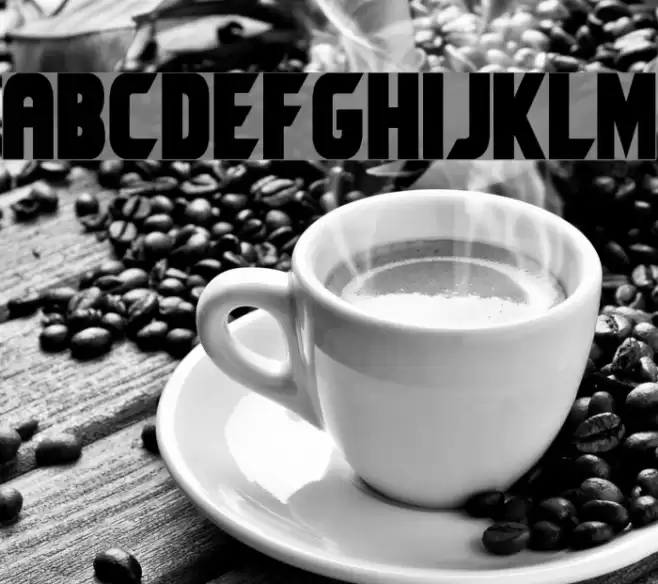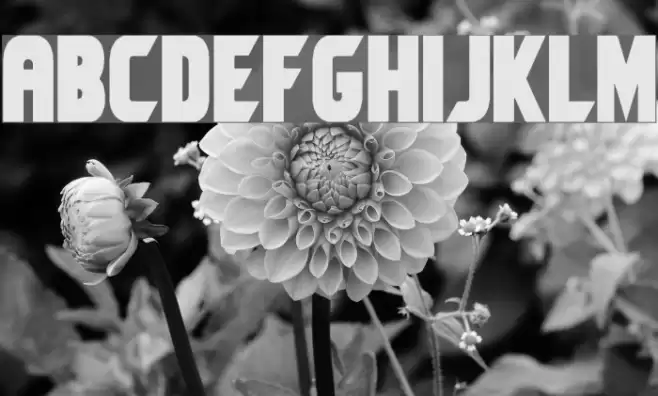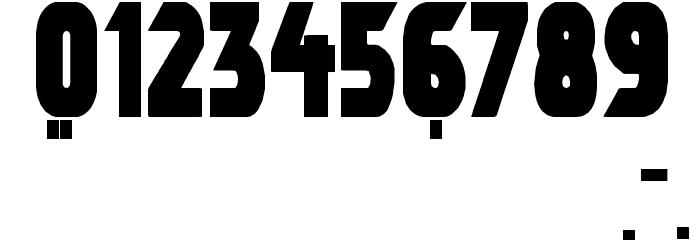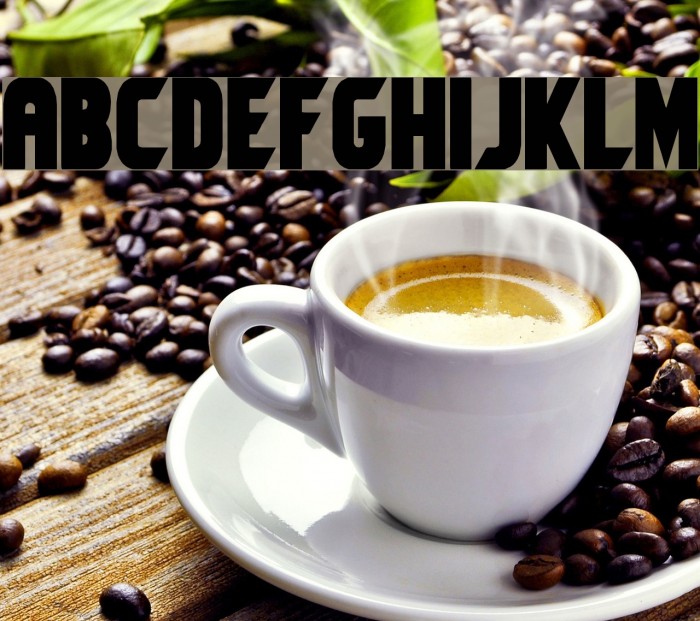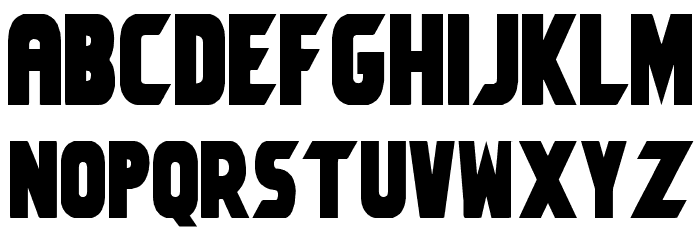
Umbro Solid Font
Umbro Solid Description
This font features bold, geometric letterforms with a strong, impactful presence. The characters are constructed with thick strokes and sharp angles, giving them a modern and assertive look. The uppercase letters are particularly striking, with a uniform height and width that creates a cohesive and balanced appearance. The numerals are equally bold, maintaining the same weight and style as the letters. The overall design is clean and straightforward, making it suitable for projects that require a strong visual impact.
A bold, geometric font with strong, impactful letterforms from Uncategorized fonts.
- Proposed Projects: Ideal for branding, posters, headlines, and any design requiring a bold statement.